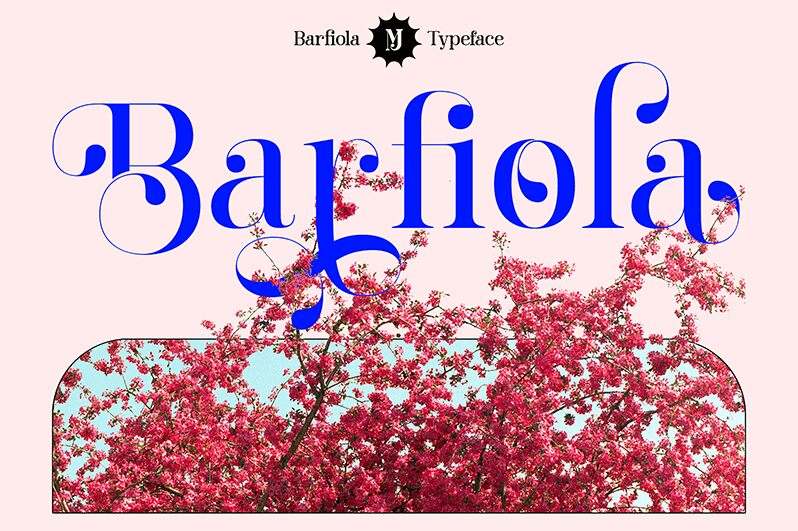
Barfiola is a creative serif font designed by MJType (Muhamad Junaid) that brings a unique and playful touch to any project. With its delicate curves and stylish serifs, this font is perfect for creating eye-catching headlines, logos, invitations, and posters. Its refined yet whimsical style is suitable for a range of projects, from fashion branding to food packaging design. Barfiola's intricate details and elegant lines make it stand out from other serif fonts on the market, making it a must-have for any designer looking to add some creativity to their work. Upgrade your typography game with Barfiola today!